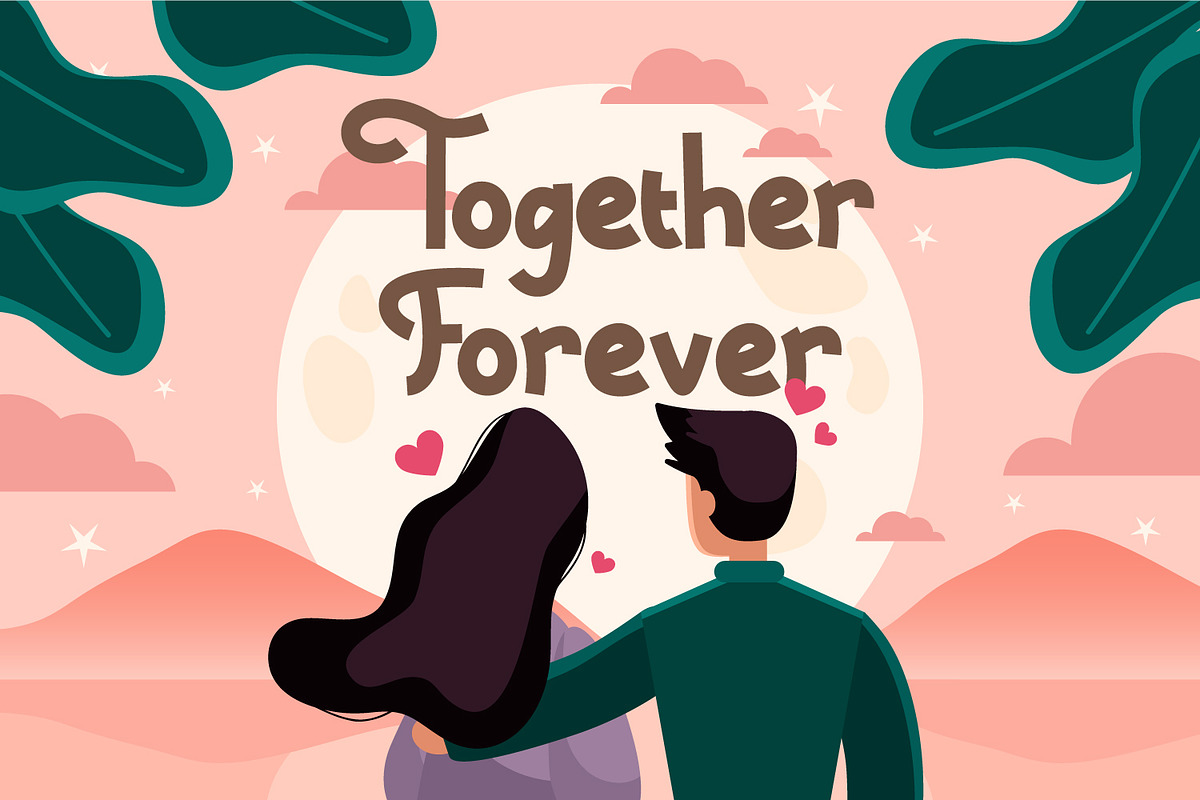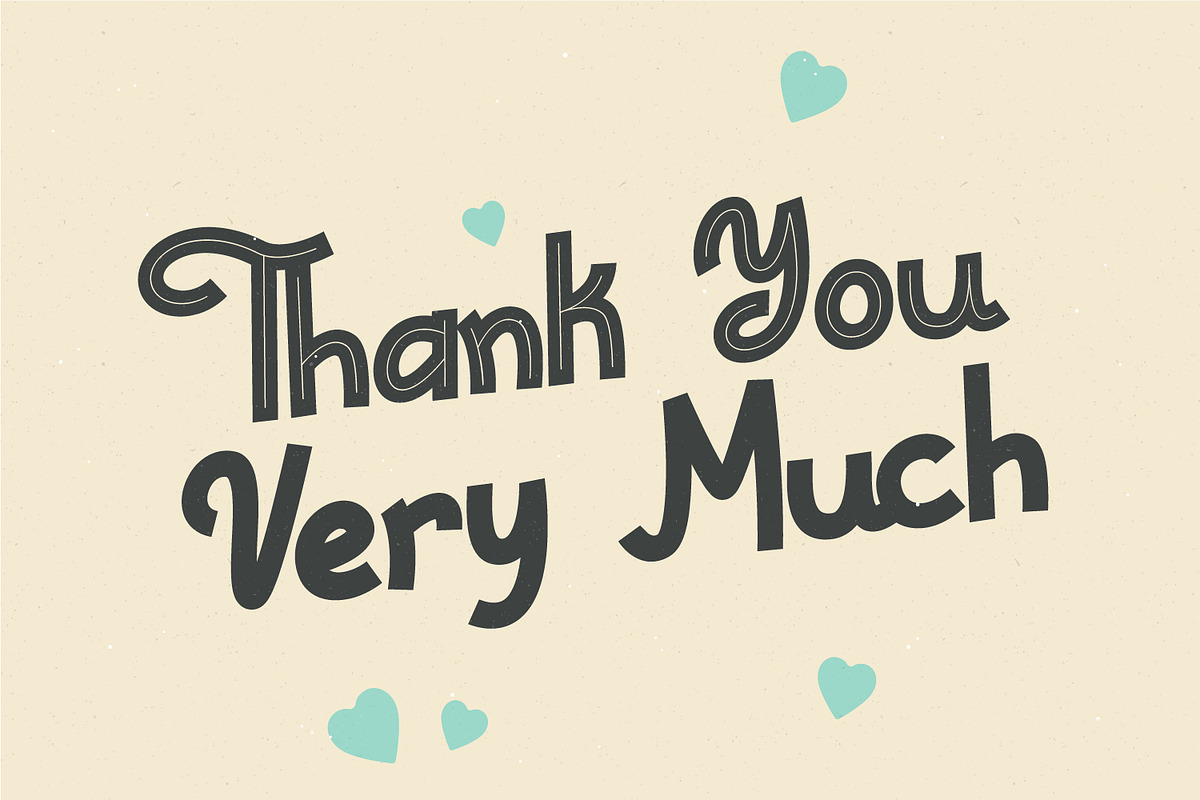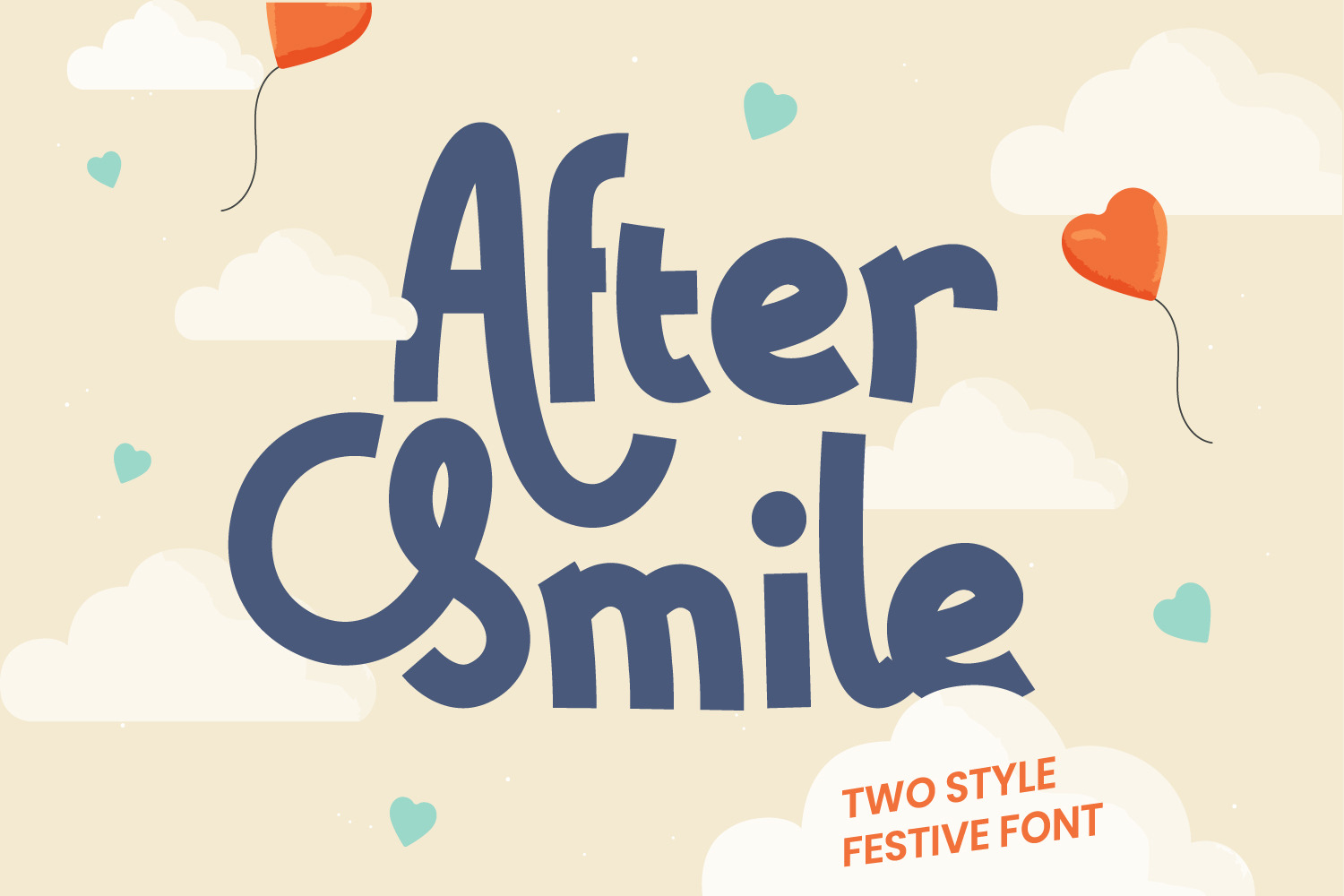
After Smile Festive Two Fonts
After Smile is a cute display font. This gentle font will look gorgeous on a variety of design ideas. It will add a jolly and sweet touch to each of your projects!